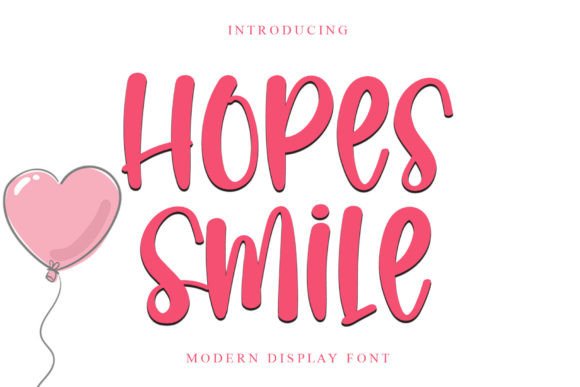
Introducing Hopes Smile, the breathtaking handwritten font created by PiPi Creative. With its elegant touch and timeless style, this font is perfect for any project that requires a touch of sophistication and charm.
Whether you're designing invitations, greeting cards, logos, or social media graphics, Hopes Smile is the perfect font to add a touch of personality and uniqueness to your work. Its neat and beautiful appearance makes it suitable for a wide range of design projects, from wedding invitations to business cards.
What sets Hopes Smile apart from other fonts is its distinct and captivating style. The delicate strokes and curves of this font create an air of elegance and sophistication that is sure to catch the eye of anyone who sees it.
Not only is Hopes Smile visually stunning, but it is also incredibly easy to use. Whether you're a seasoned designer or a beginner, you'll find this font easy to work with, thanks to its user-friendly design and clear legibility.